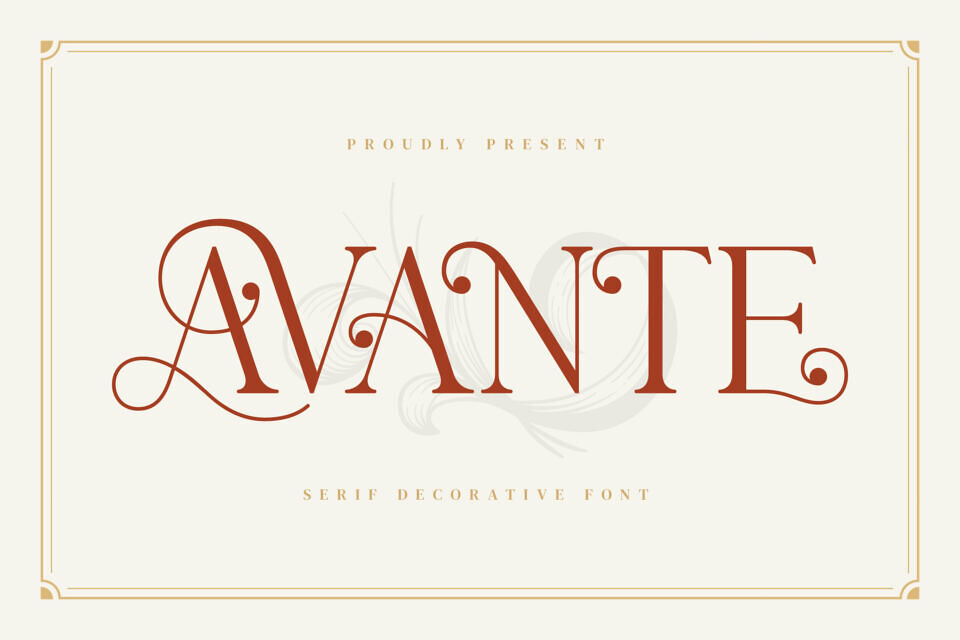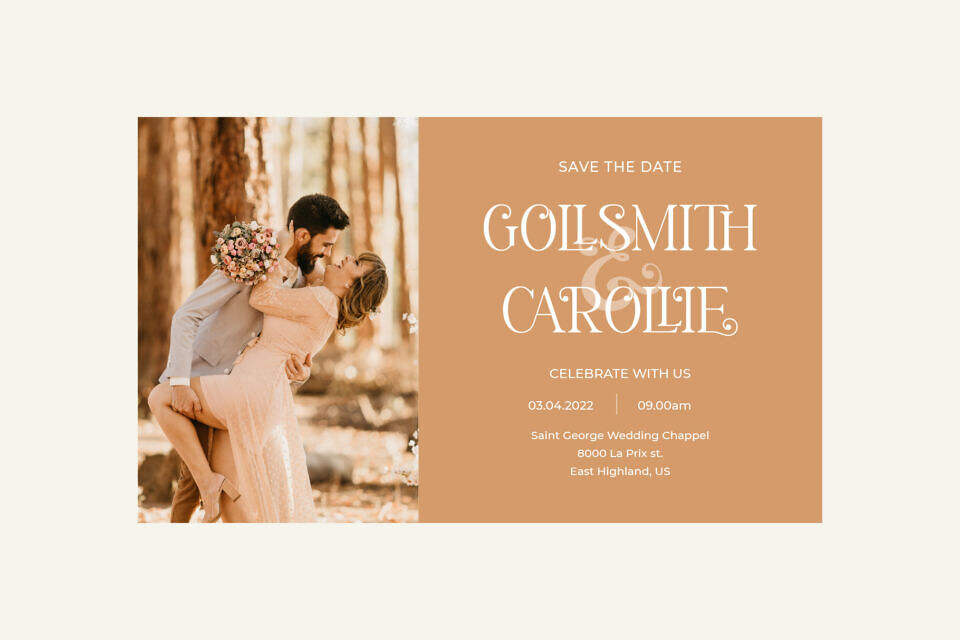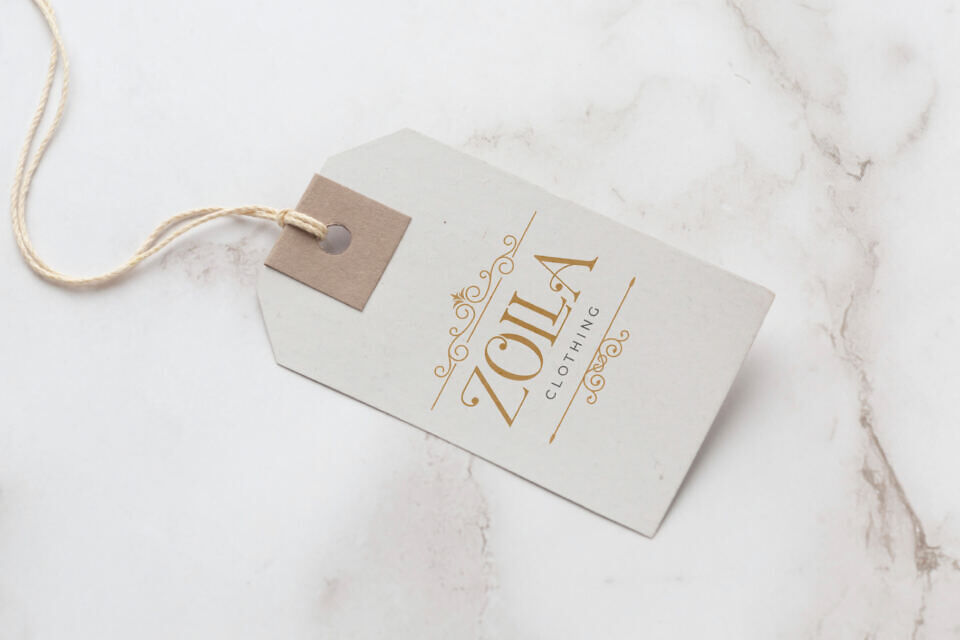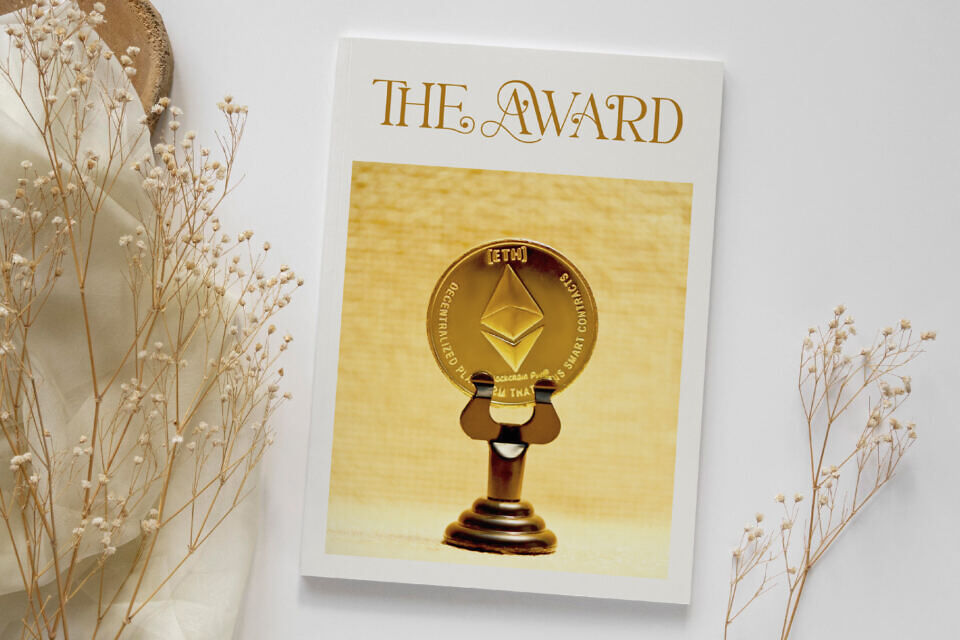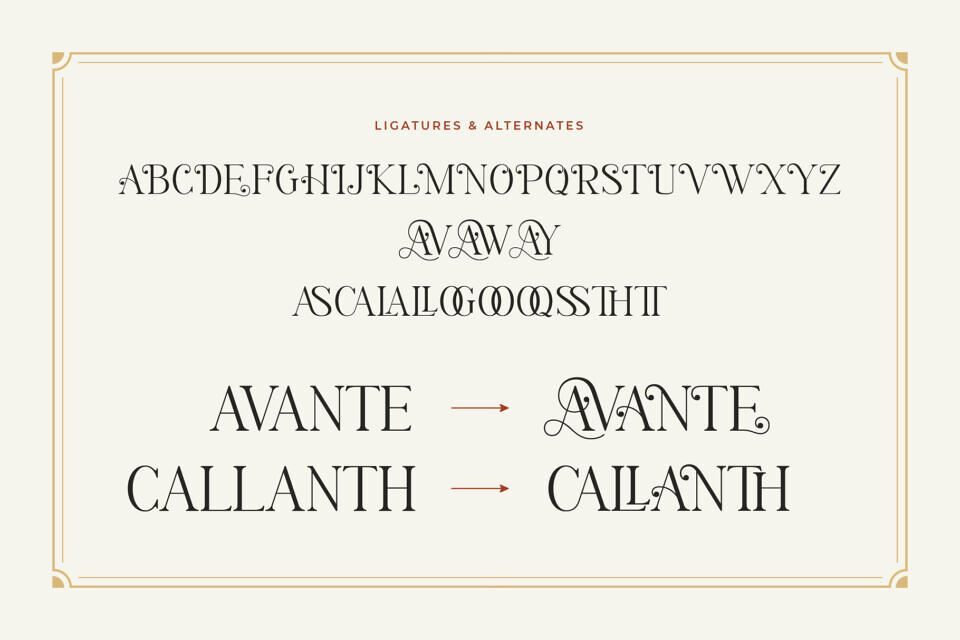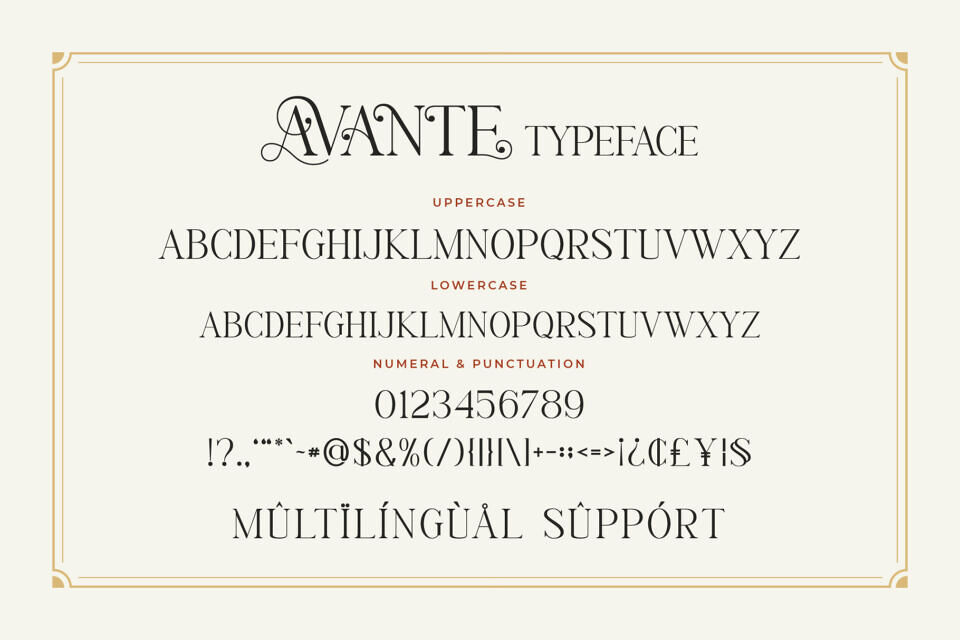
Avante Font
Avante is a stylish serif font, inspired by the famous minimalist logo. It is perfect for the purposes of designing templates, brochures, videos, advertising branding, logos and more.